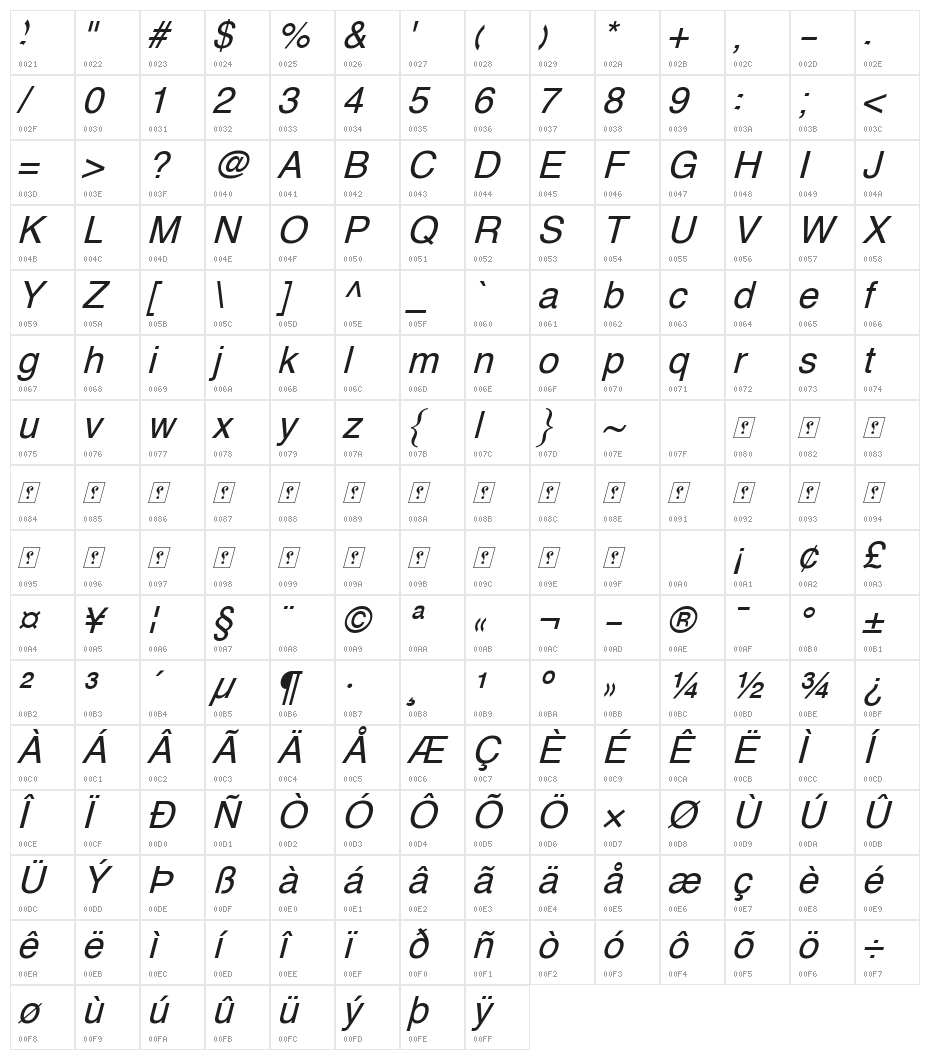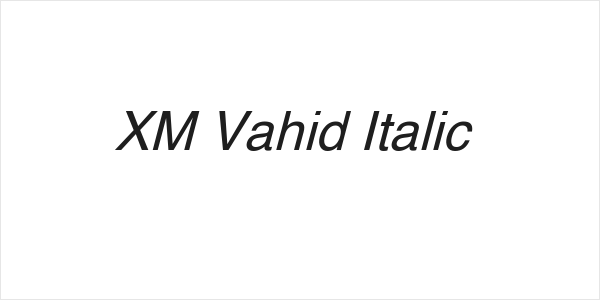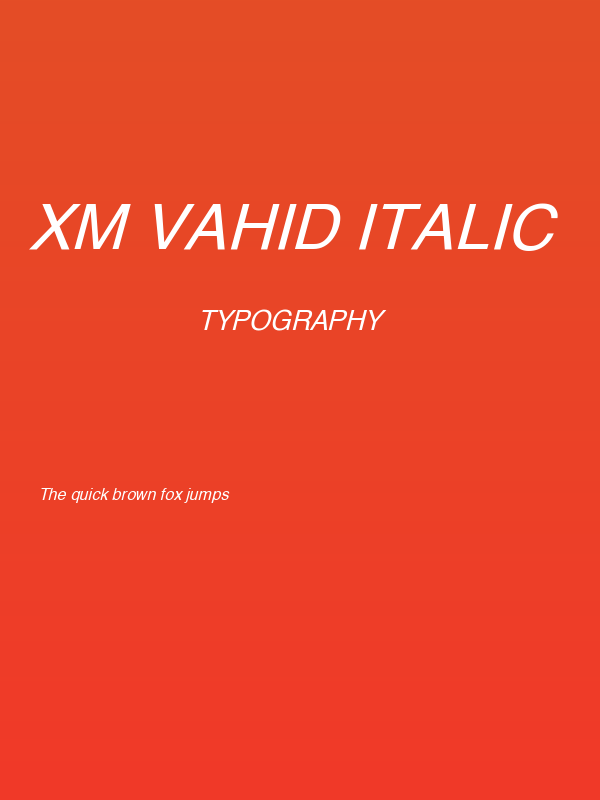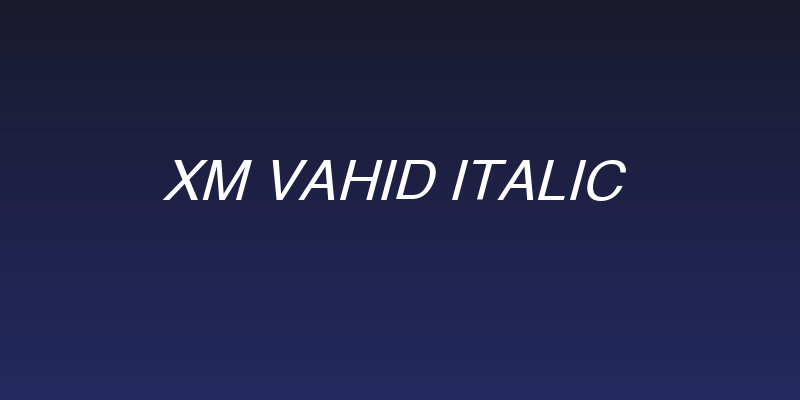
XM Vahid Italic Font
XM Vahid Italic Description
This font features a sleek and modern italic style, characterized by its smooth curves and clean lines. The letters are slightly slanted, giving a sense of motion and elegance. The uppercase and lowercase letters maintain a consistent style, with a moderate contrast in stroke thickness that enhances readability. The numerals are clear and distinct, matching the overall aesthetic of the alphabet. Special characters are well-integrated, maintaining the font's cohesive look. The spacing between characters is normal, ensuring legibility without appearing crowded.